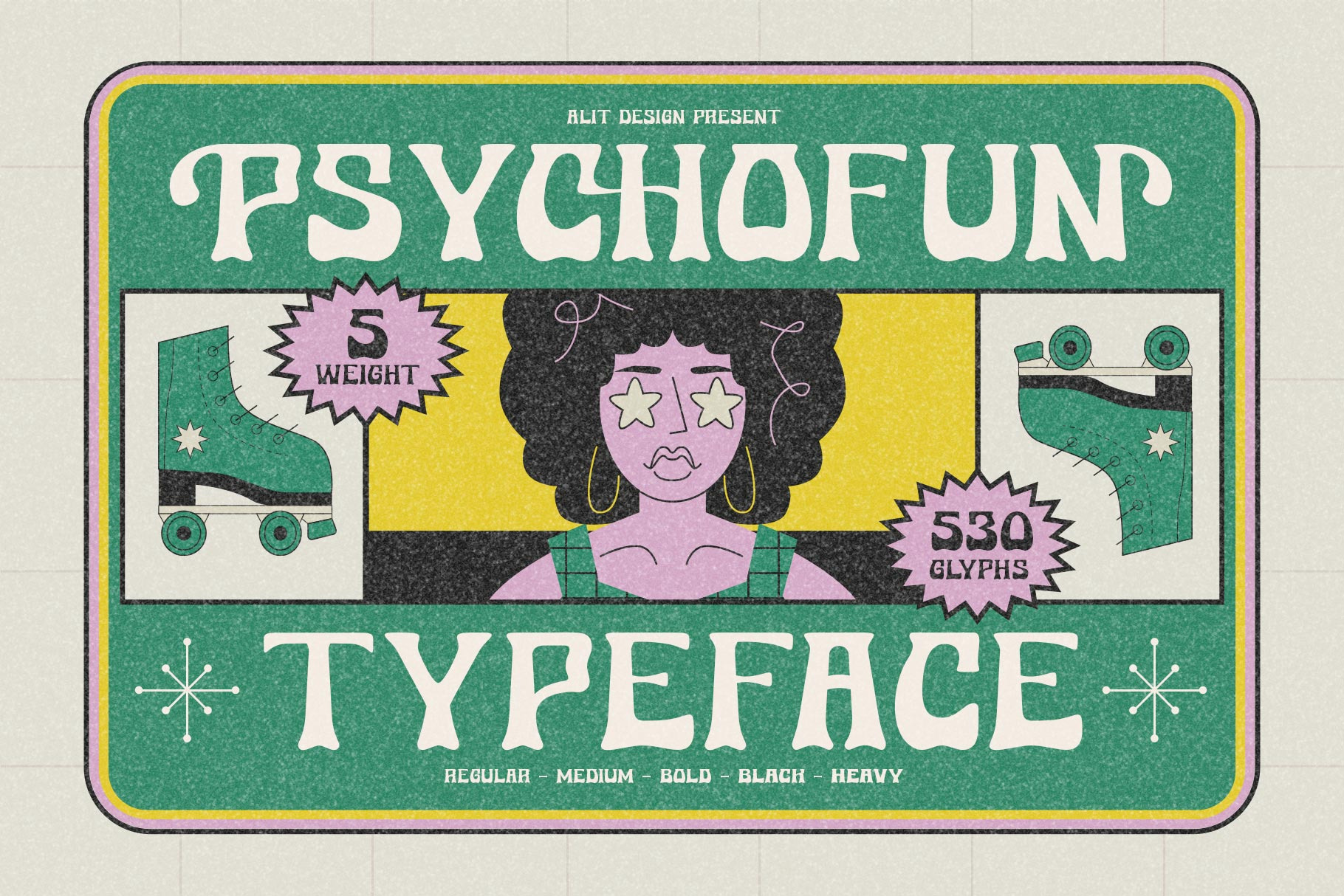
Introducing Psychofun Typeface
Psychofun Typeface is designed with a retro style concept that has a unique and cool shape. It is suitable for header text fonts, book covers and designs that have a retro and groovy concept, besides that Psychofun Typeface is also very good when used for body text. Psychofun Typeface has 5 families from Regular to Heavy.
Display Serif typefaces such as “Psychofun Typeface” are very easy to apply to any design, especially those with an retro, groovy and classic concept, besides that this font is very easy to use both in design and non-design programs because everything changes and glyphs are supported by Unicode (PUA).
The Psychofun Typeface contains 530 glyphs with many unique and interesting alternative options. Plus, there's a cool display serif font family for header and description text from regular to heavy. In the poster preview all the letters are in the Psychofun Typeface.